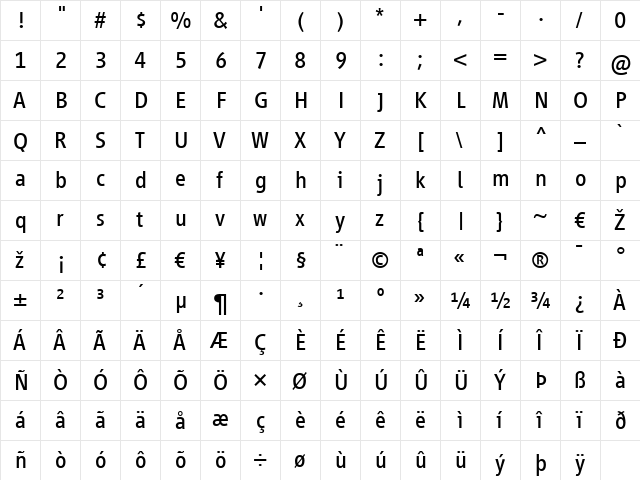
Vialog LT Regular Regular
| Designer | Werner Schneider |
Design Context for Vialog LT Regular Typeface
Vialog LT Regular takes a measured approach to typography — its balanced proportions and neutral character make it a reliable workhorse for both digital and print work. The delicate stroke weight brings airiness and refinement to layouts.